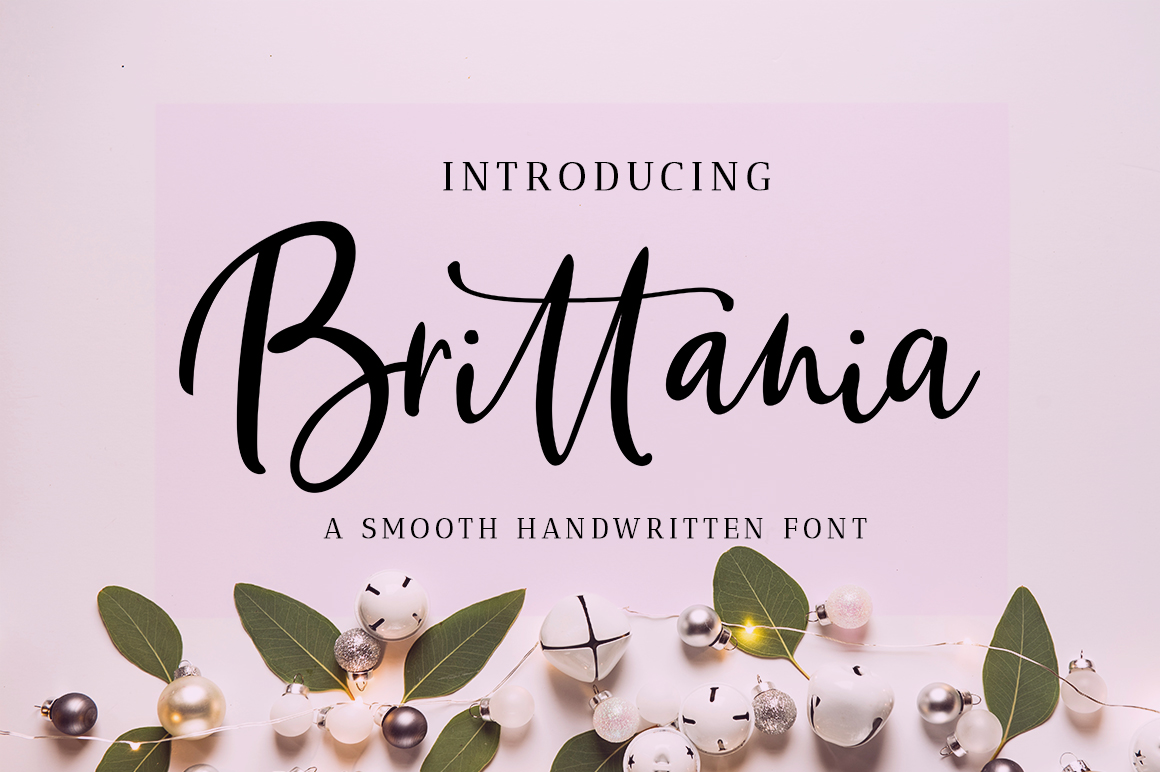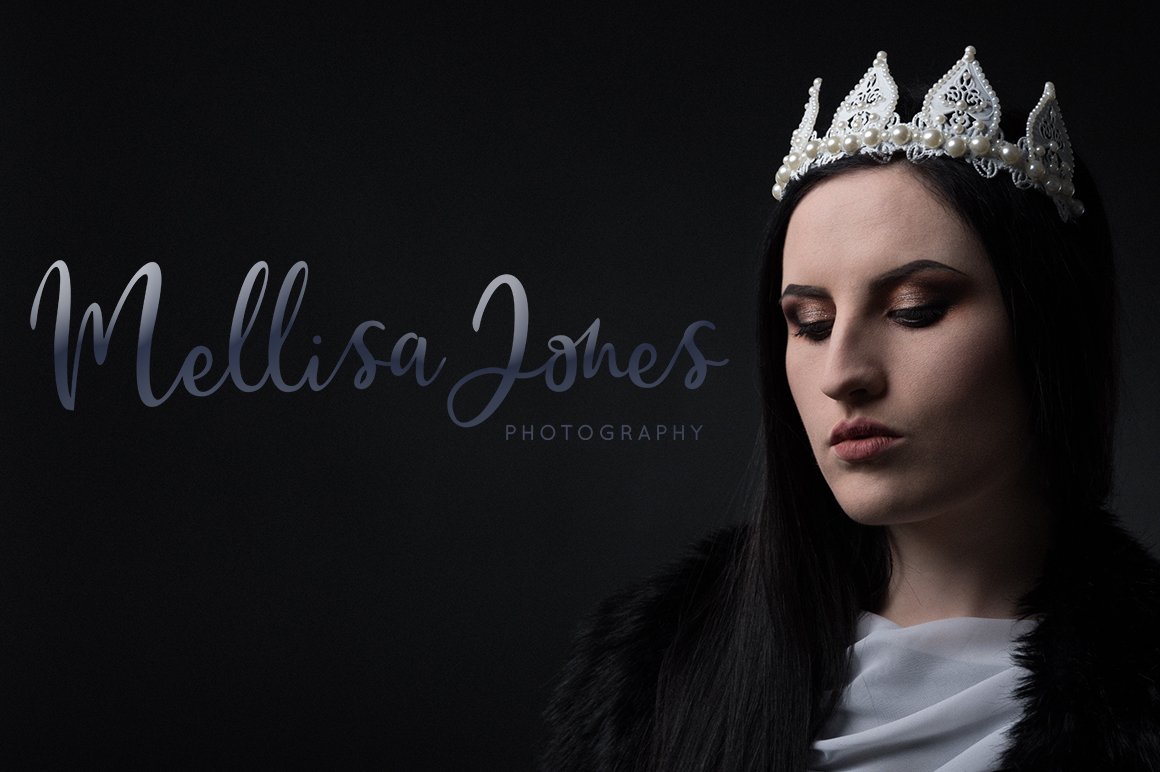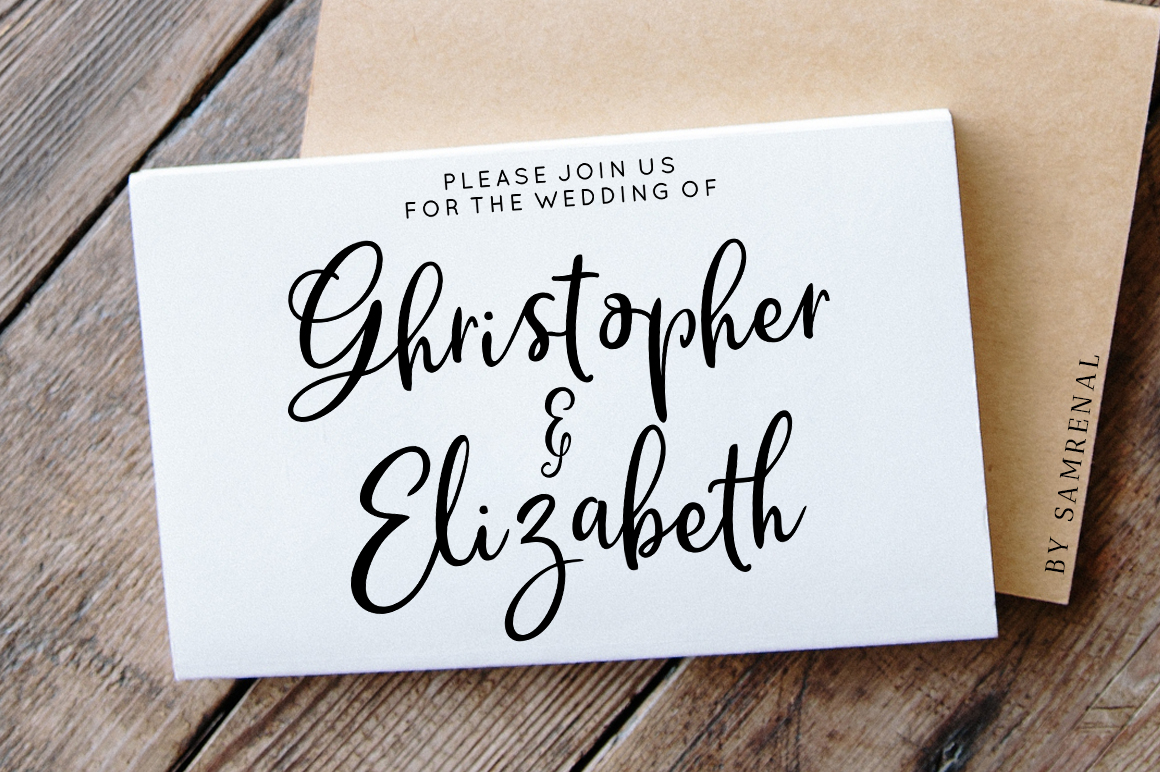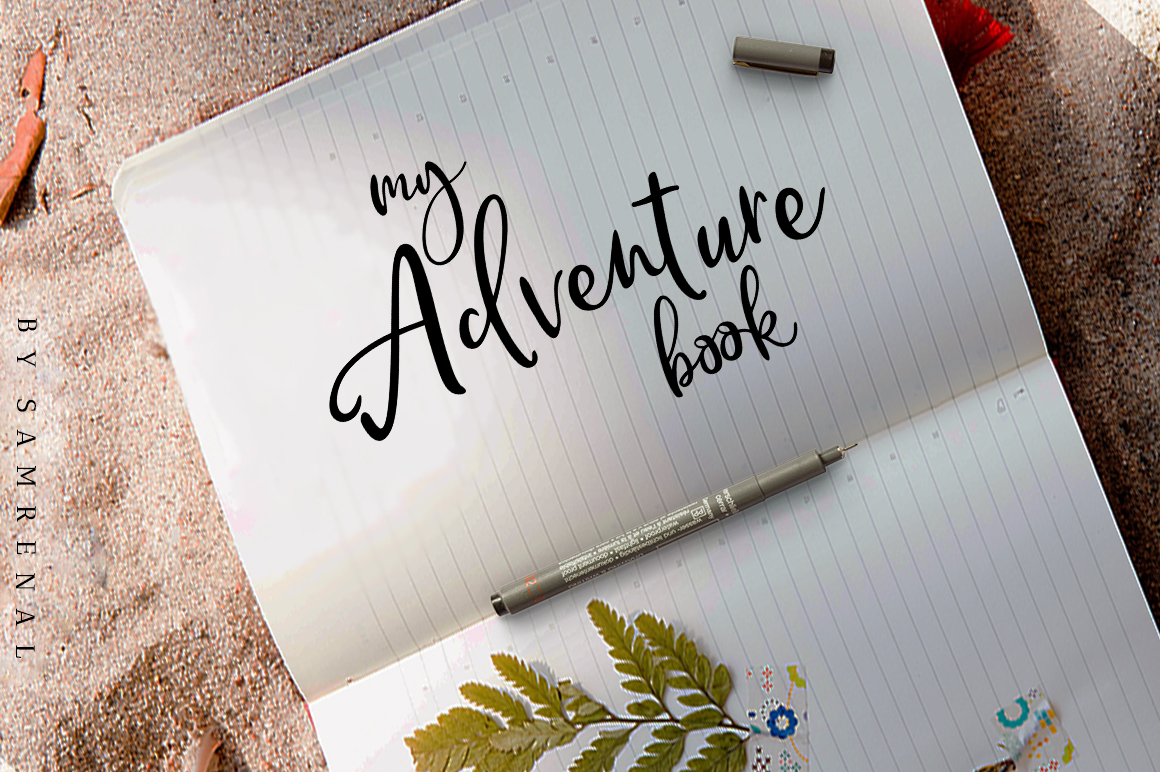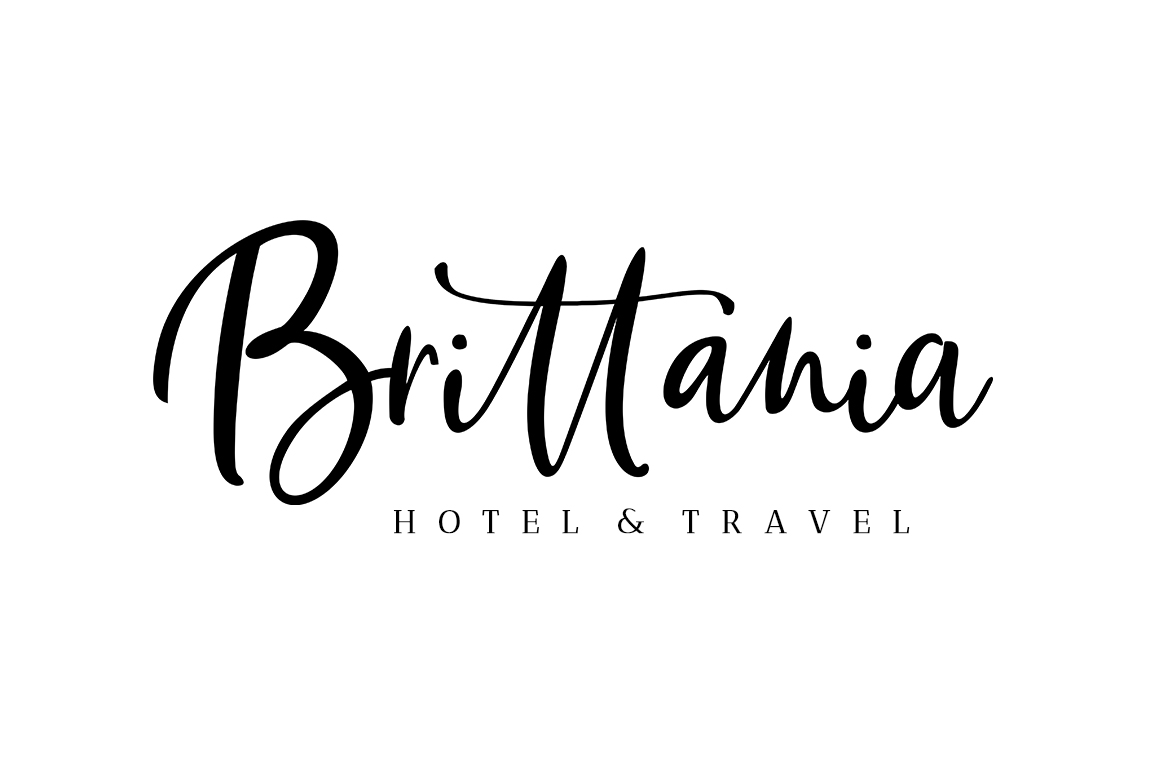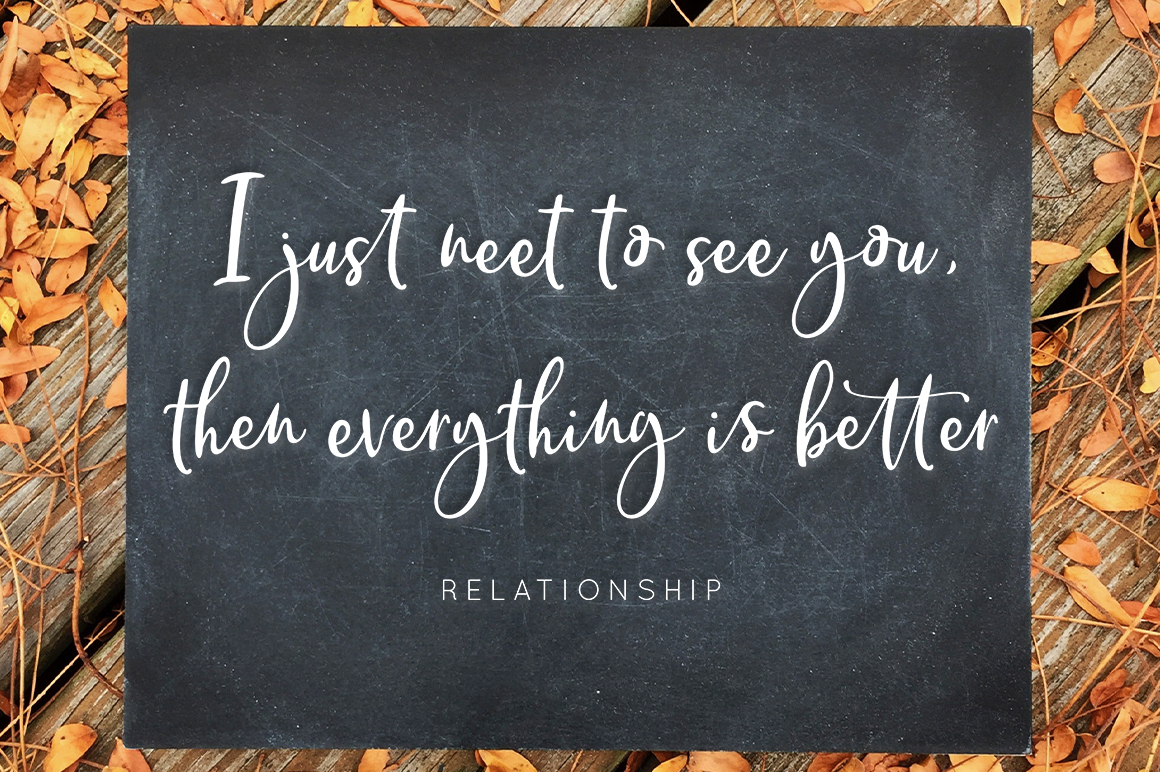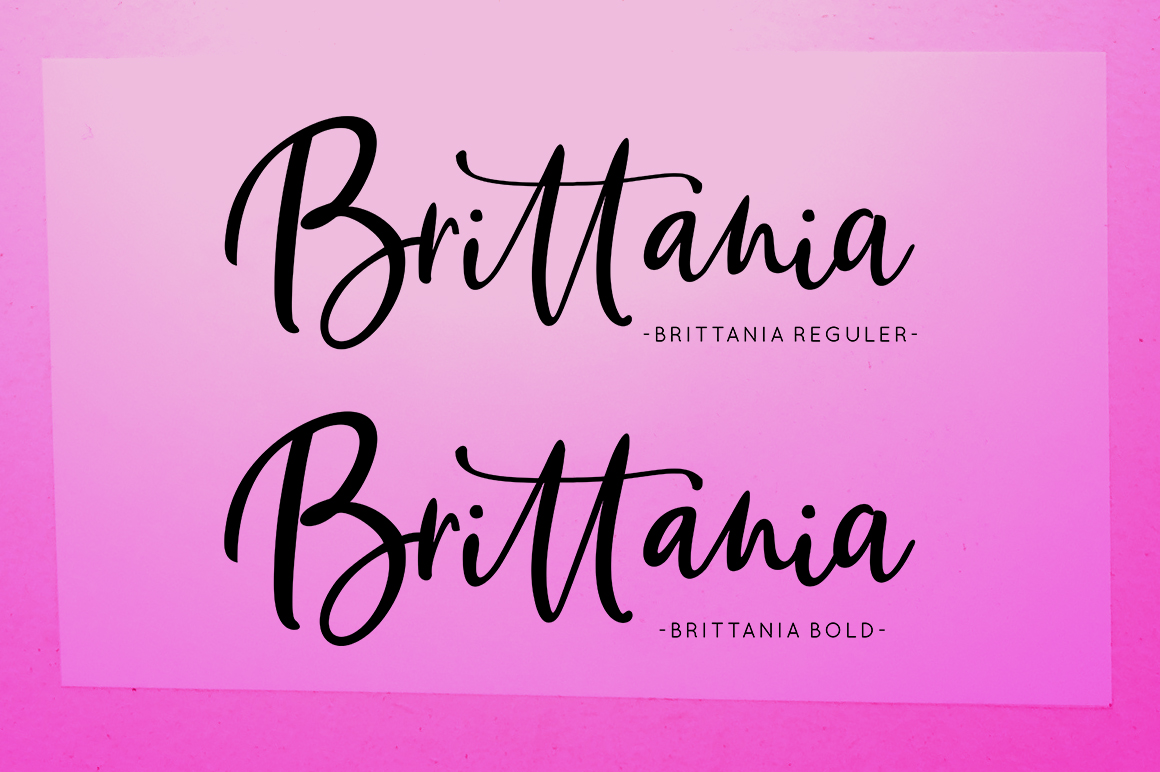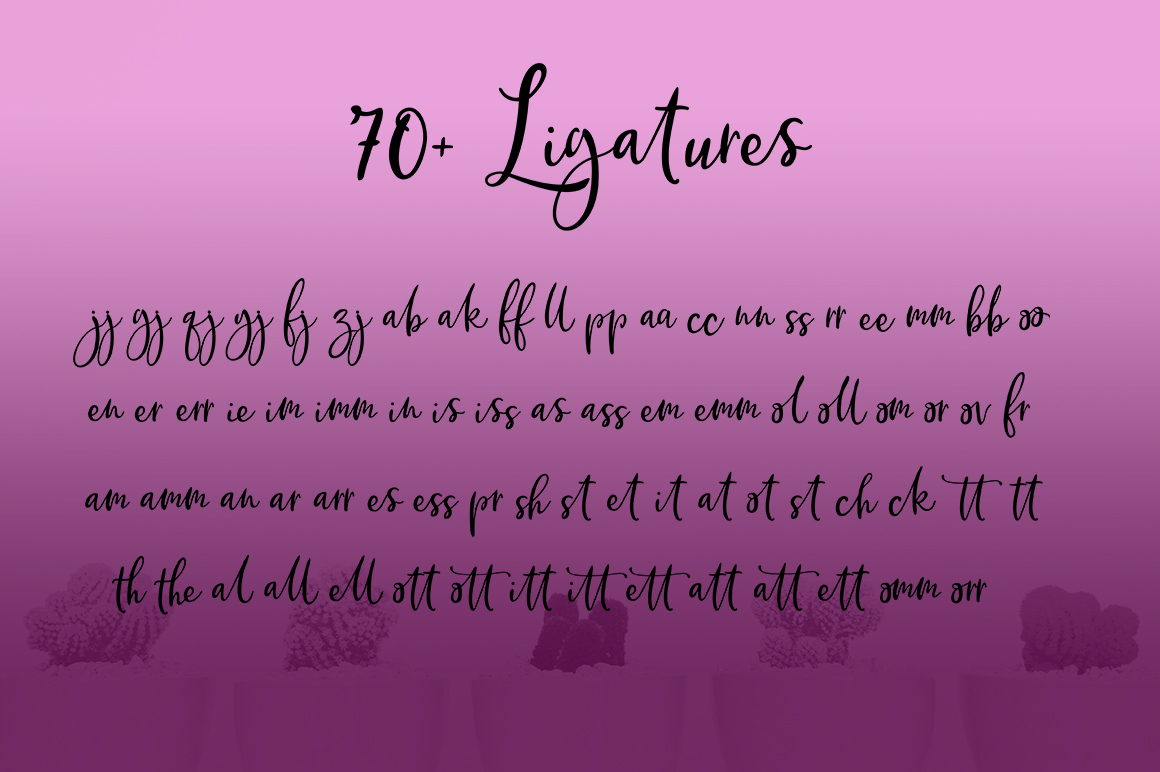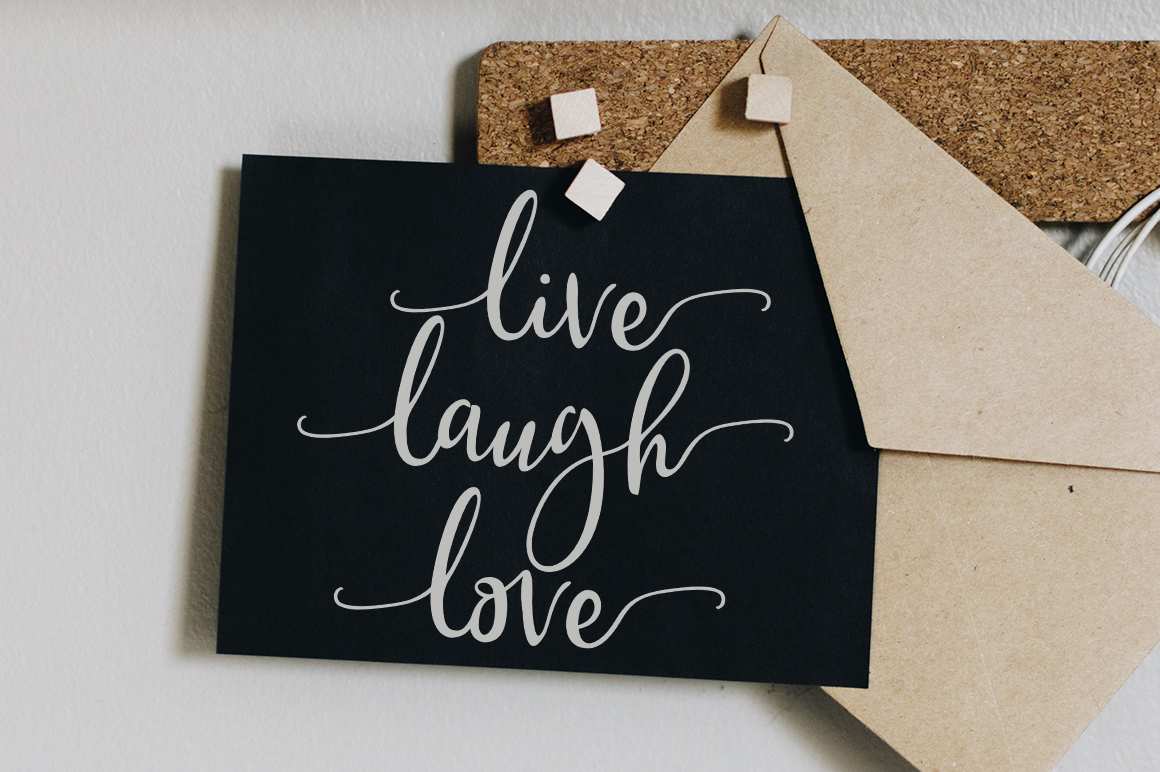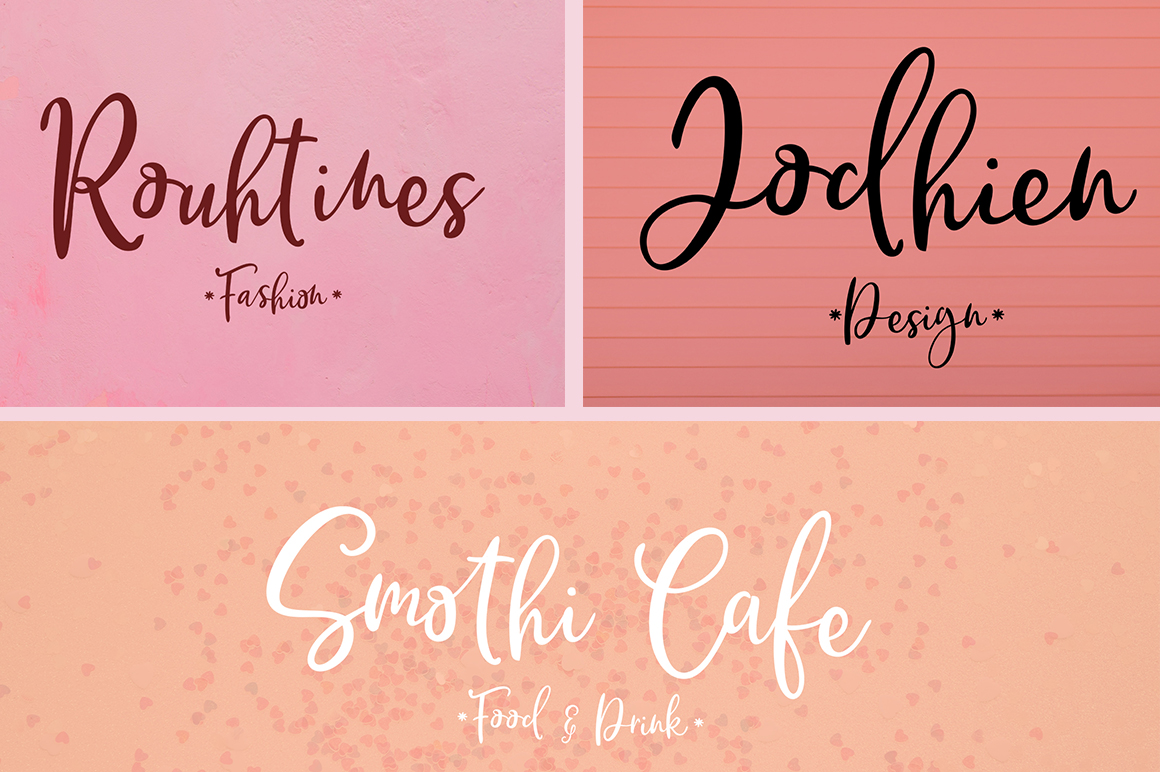
Brittania Script Font
Brittania is a gorgeous script font, perfect for invitationals and headlines. This font stands out from the crowd, and has tons of unique characteristics and alternates for an impactful and unique design edge.